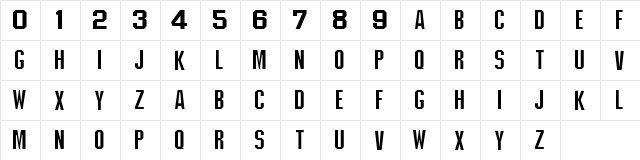
MLB Giants Regular
Design Context for MLB Giants Typeface
MLB Giants takes a measured approach to typography — its balanced proportions and neutral character make it a reliable workhorse for both digital and print work.